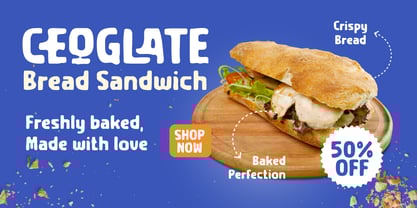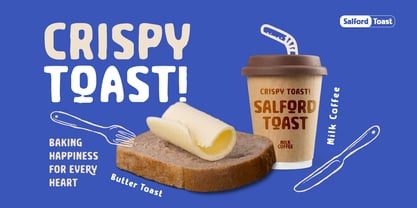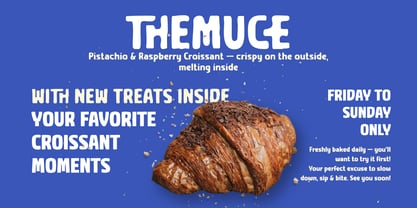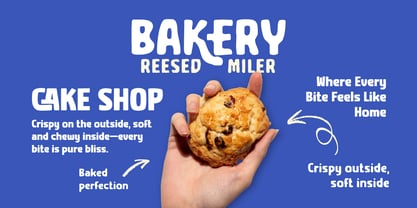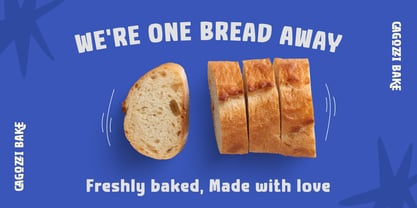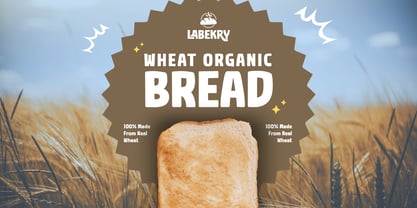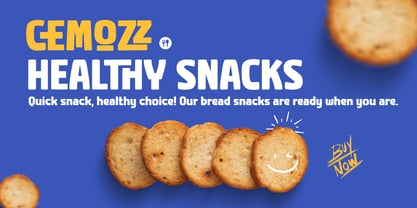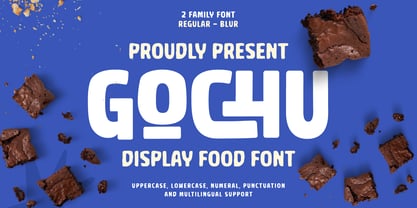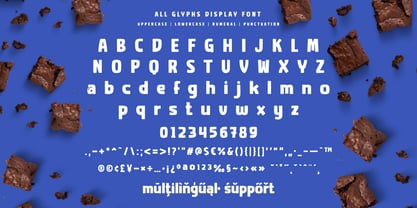
Gochu
by Trabas Kriya
The Gochu Font Family was designed by Murozakul Akhsan and published by Trabas Kriya. Gochu contains 2 styles and family package options. More about this family
Gochu is a sweet and delightful bakery display font designed to bring warmth and charm to your culinary-themed projects. With its soft curves, chubby letterforms, and handcrafted feel, Gochu evokes the cozy atmosphere of a traditional bakery or pastry shop. It's perfect for bakery logos, packaging for cookies and cakes, dessert menus, food blogs, café branding, and anything that needs a touch of homemade love.
The rounded and friendly appearance of Gochu creates an inviting impression that instantly makes your design more approachable. Whether you're designing a label for homemade treats or creating playful headlines for a food magazine, Gochu will add the perfect sprinkle of personality and flavor..